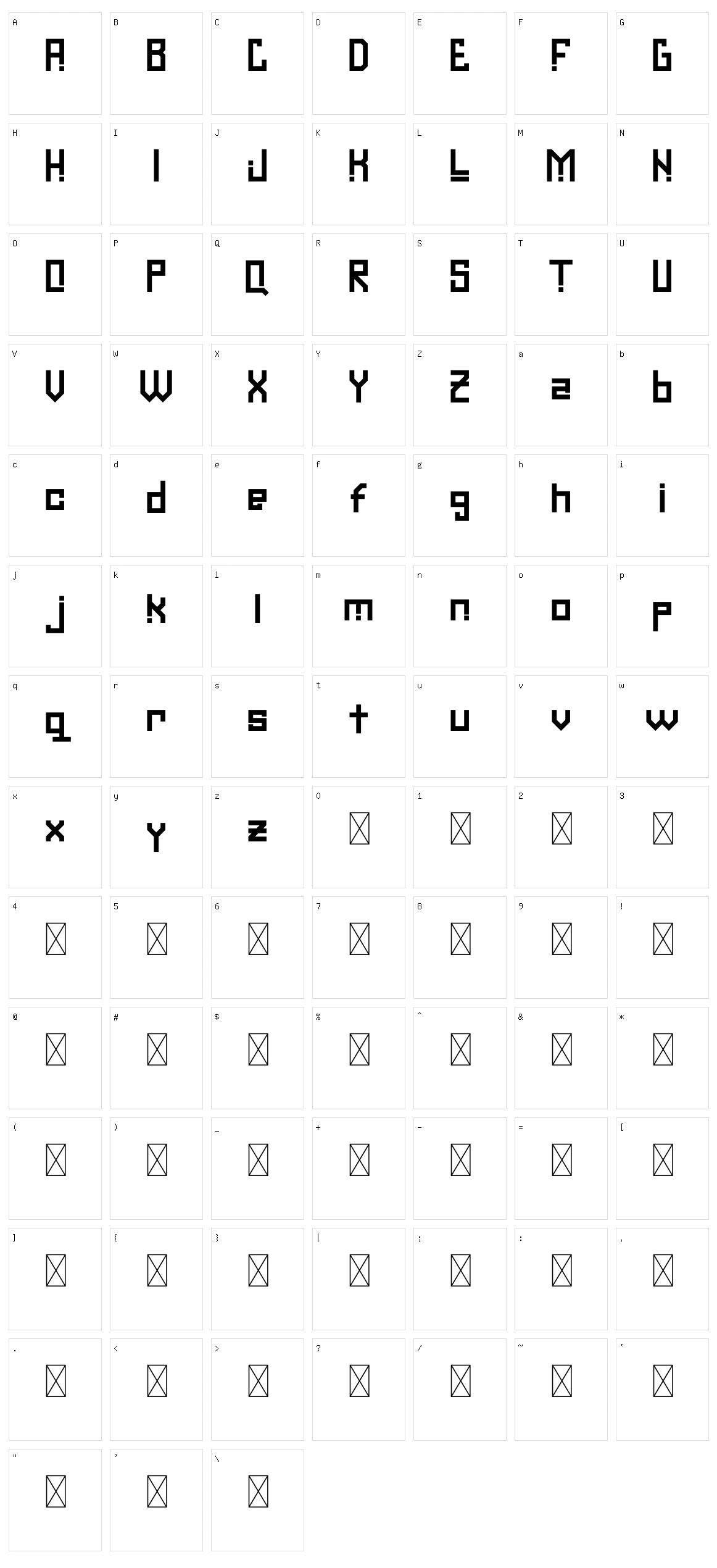
The free font Latelo is carefully designed by Esa Nugroho, showcasing a thoughtful balance of creativity and usability and falls under the Square font style. When you download the ZIP file, it contains only 4.82 KB of font files, making it lightweight and quick to download. Please review the license details below to understand permitted usage and distribution rights. If license information is not available, we recommend using this font for personal projects only or contacting the author directly for commercial usage permissions.